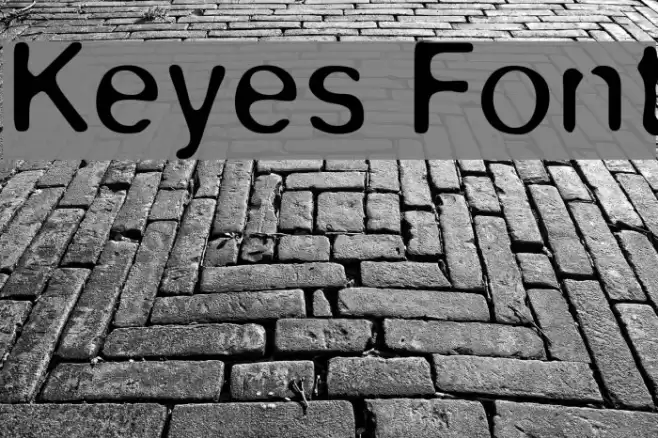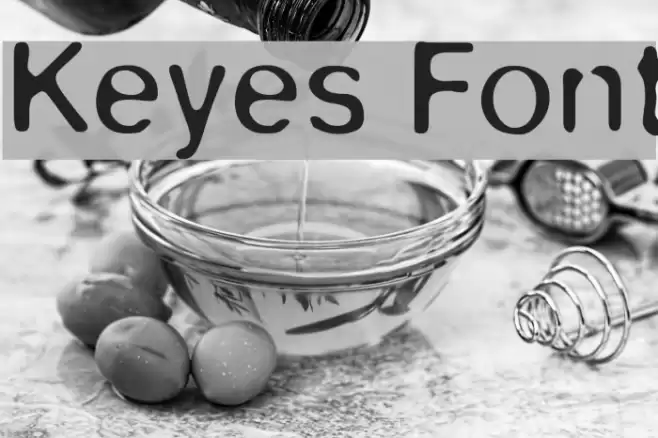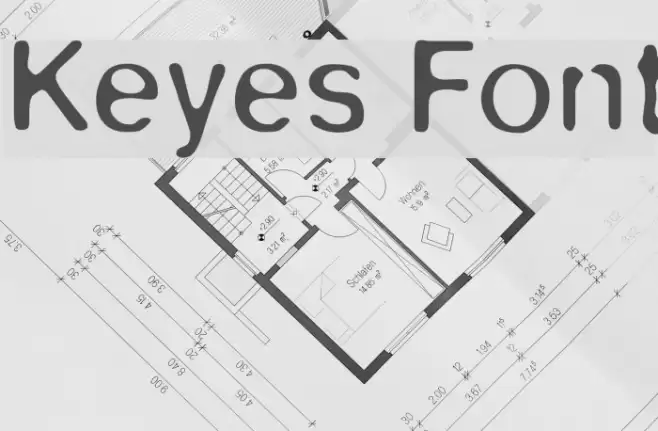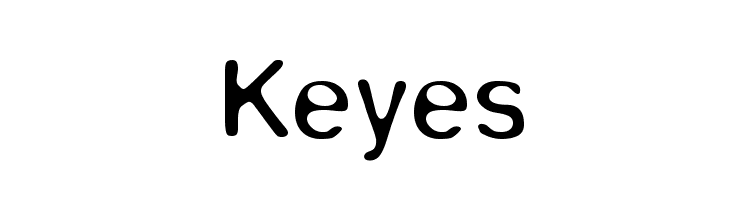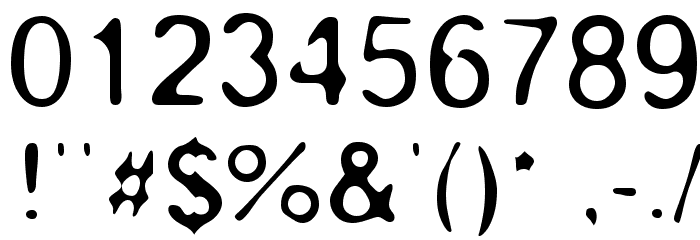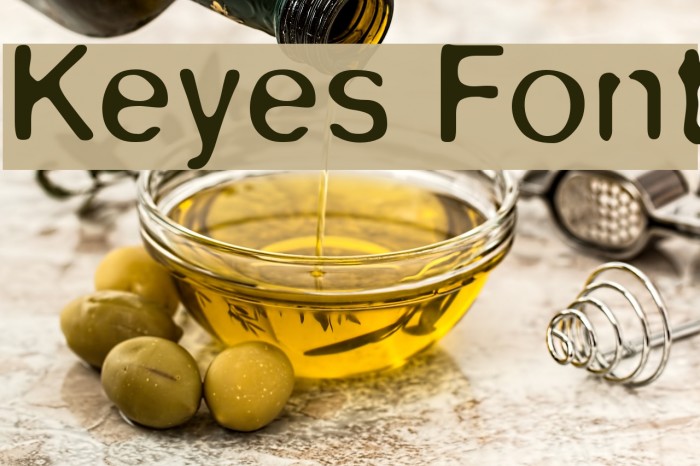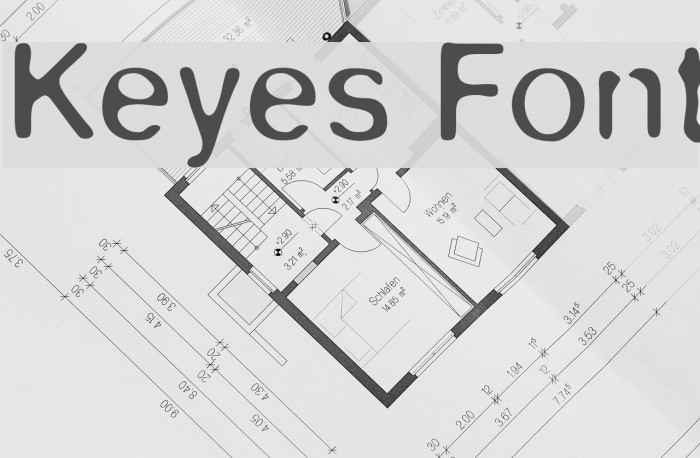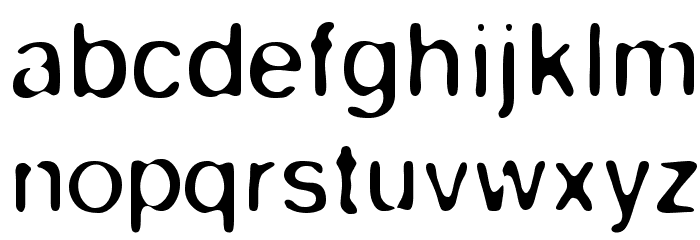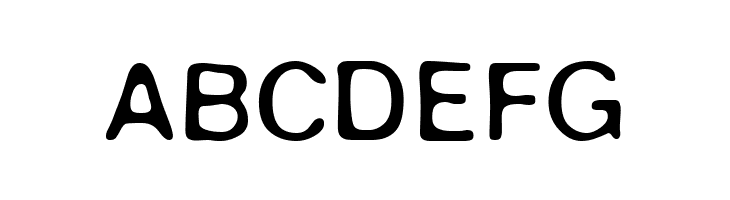
Keyes Font
Keyes Description
This font features a playful and rounded style, characterized by its smooth curves and slightly irregular shapes. The letters have a hand-drawn appearance, giving them a whimsical and friendly feel. The uppercase and lowercase letters maintain a consistent design, with the lowercase letters slightly smaller and more compact. The numbers and special characters follow the same playful theme, ensuring a cohesive look across all text elements. The font's unique style makes it stand out, while still being legible and versatile for various design applications.
A playful, rounded font with a hand-drawn, whimsical style from Distorted Eroded fonts.
- Proposed Projects: Ideal for children's books, playful branding, greeting cards, and creative posters.
- Overall Style: Playful, Whimsical
- Use Case: Logos, Posters, Children's Books